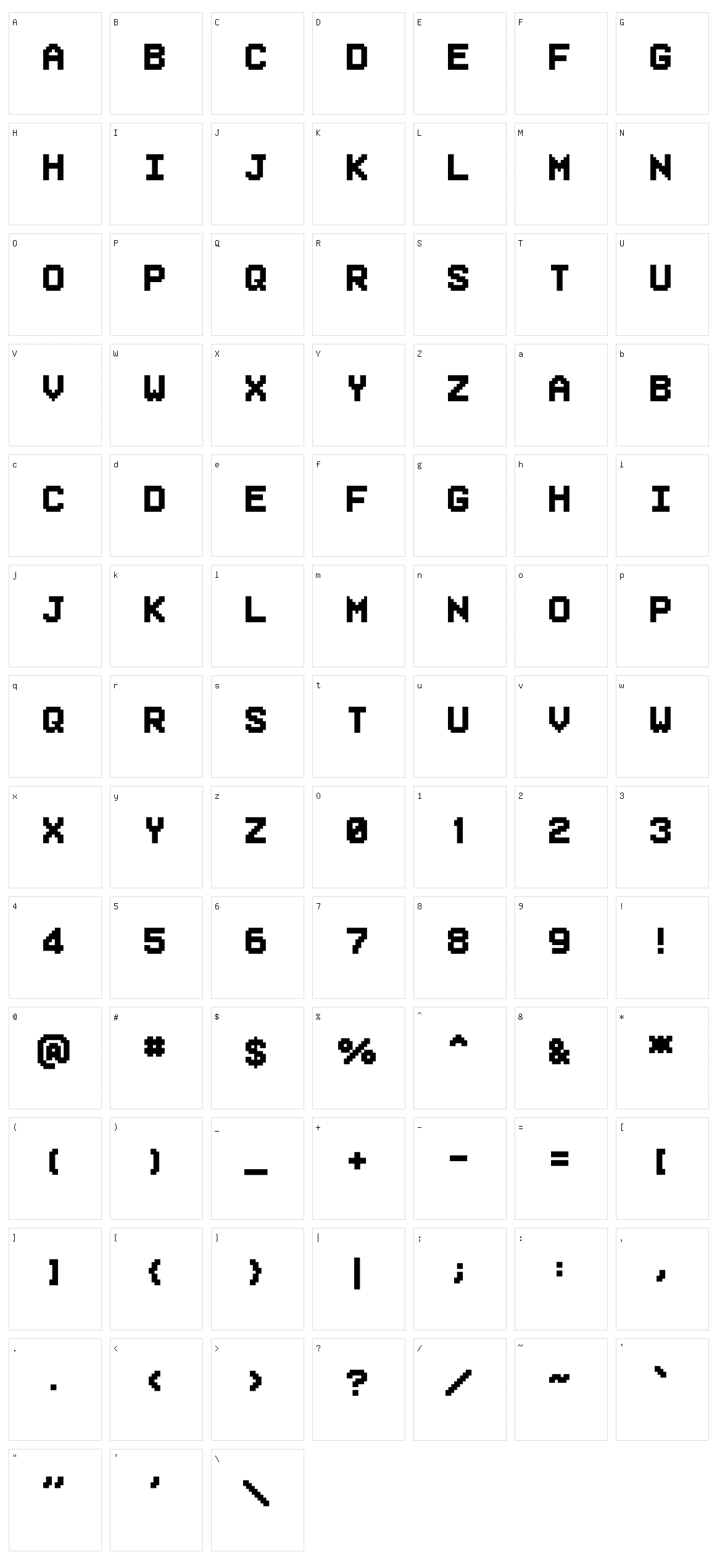
Superstar
Designed by: memesbruh03
ÿþSuperstar. A gem sticker based typeface.
I actually got the design from actual
stickers like this, so...
...anyways, here are the charsets.
Original Style Charset
MB03 Style Charset
NOTE: It is highly recommended to use the
MB03 version
your own work.